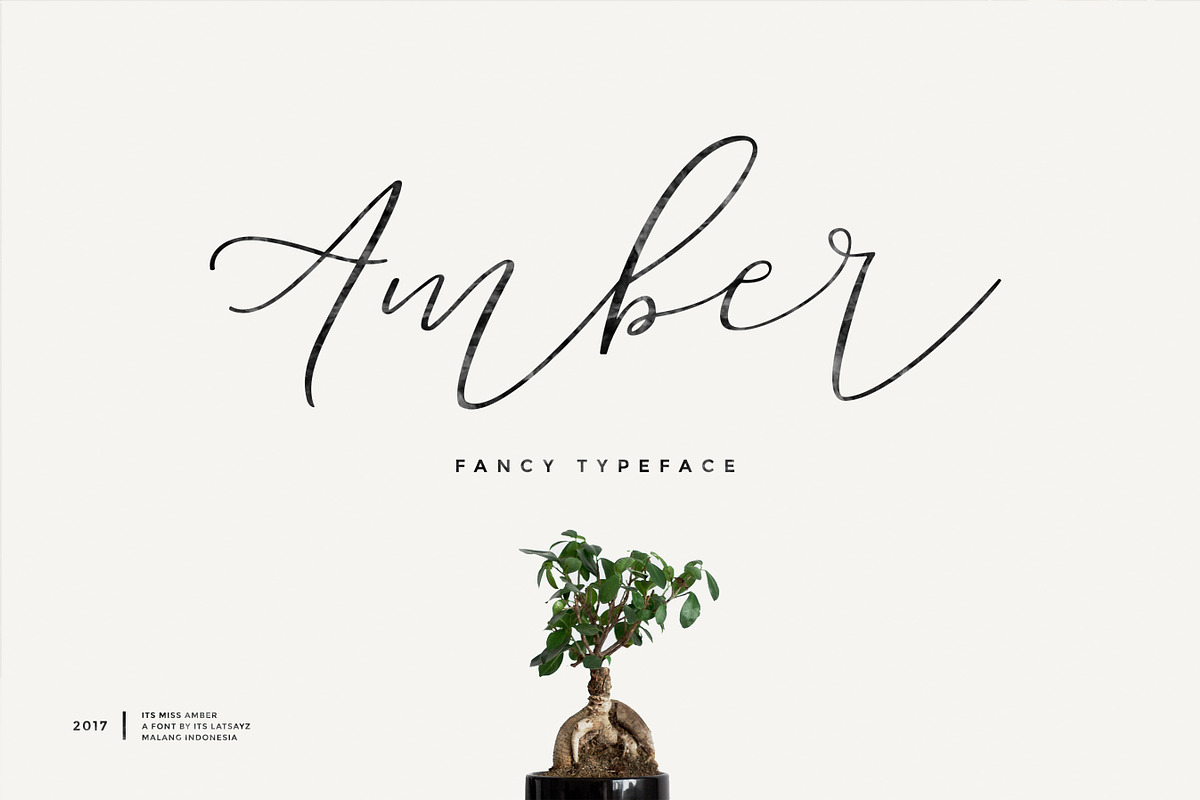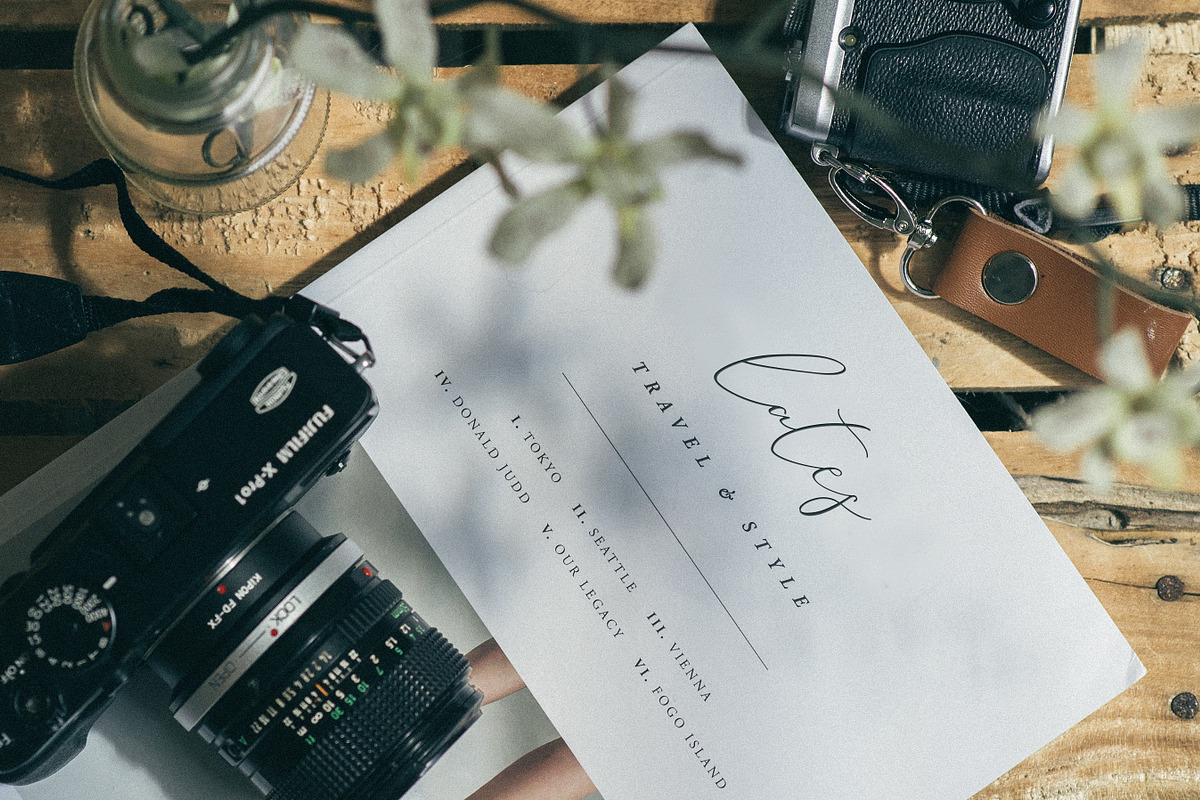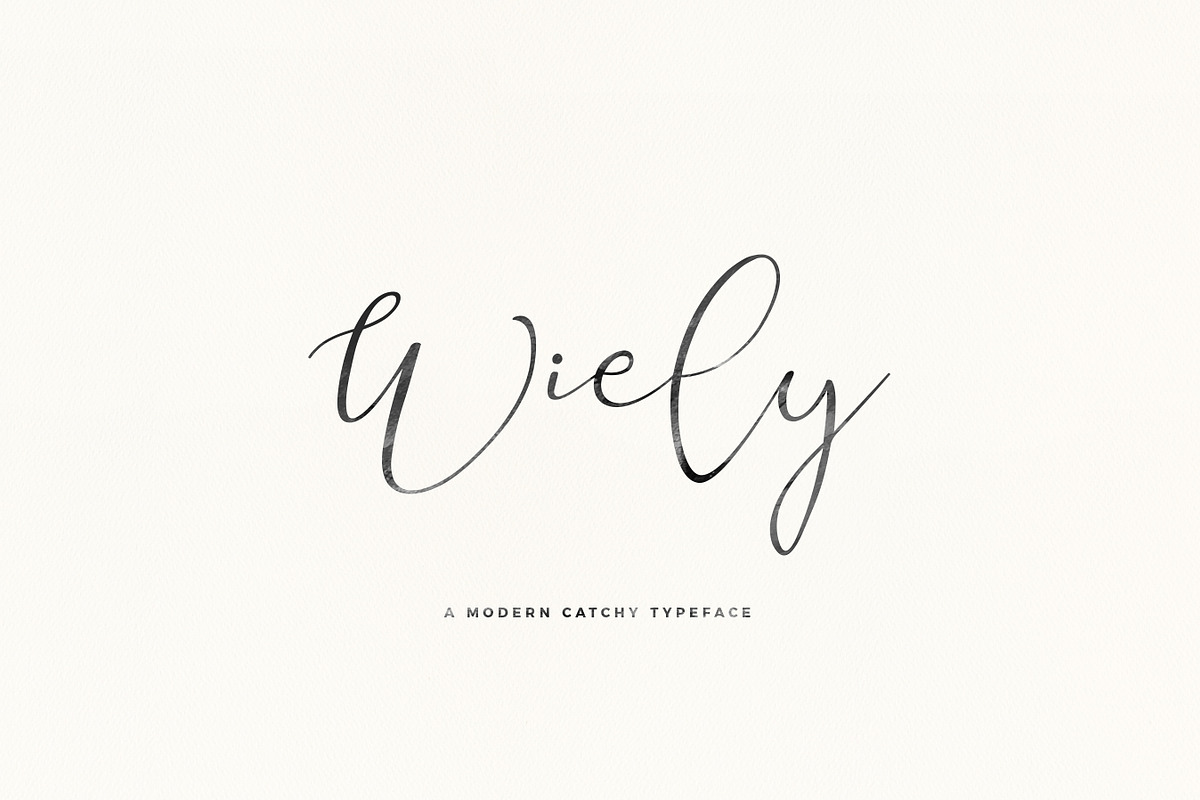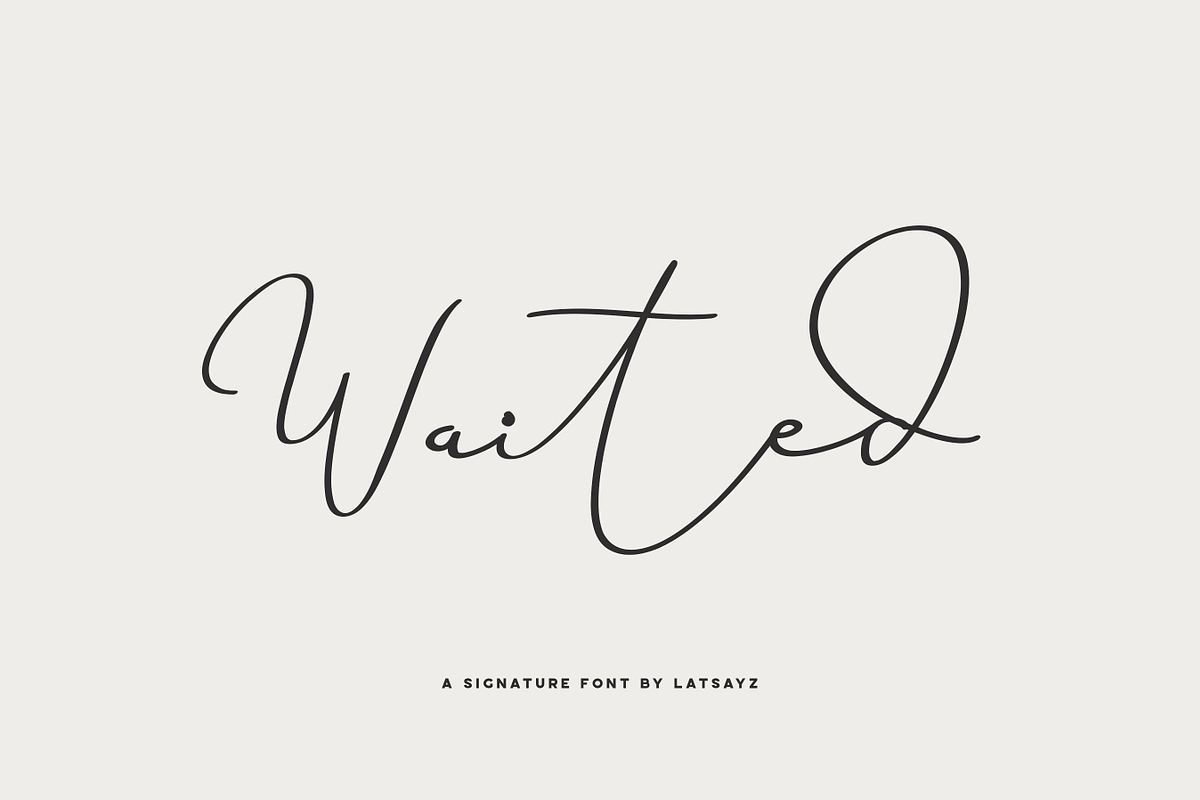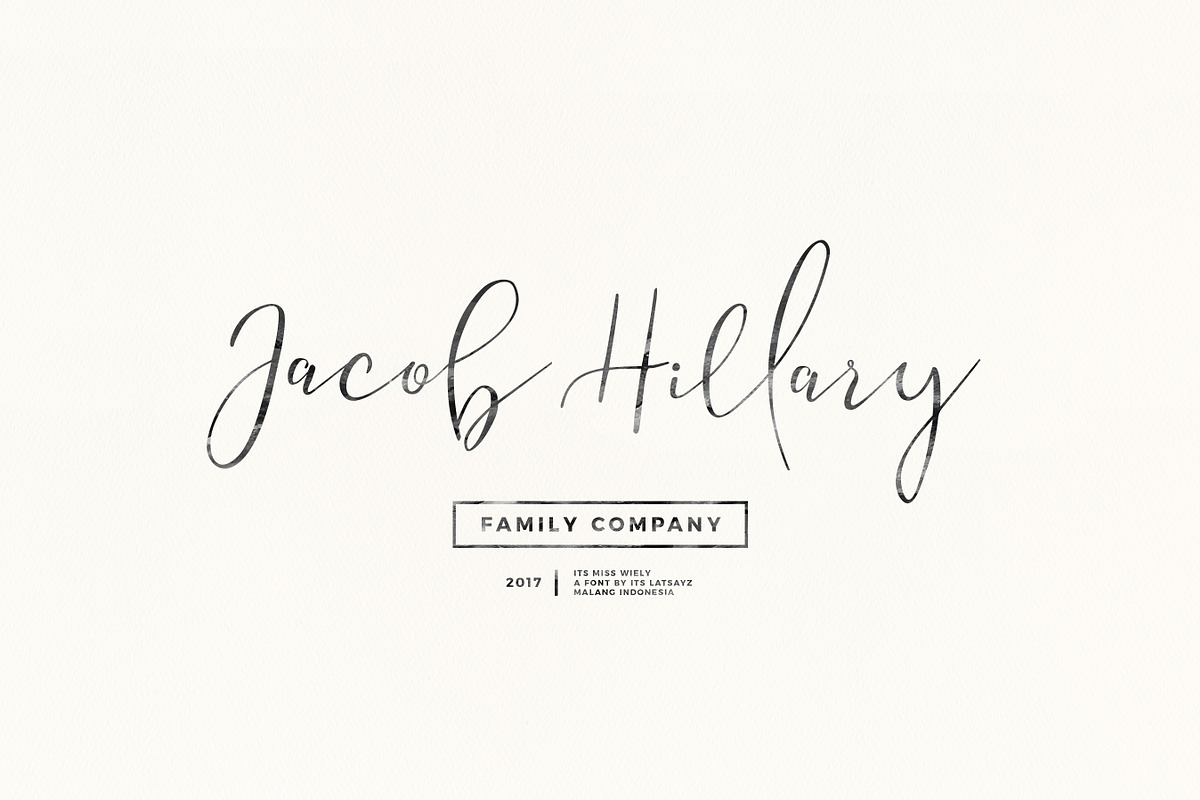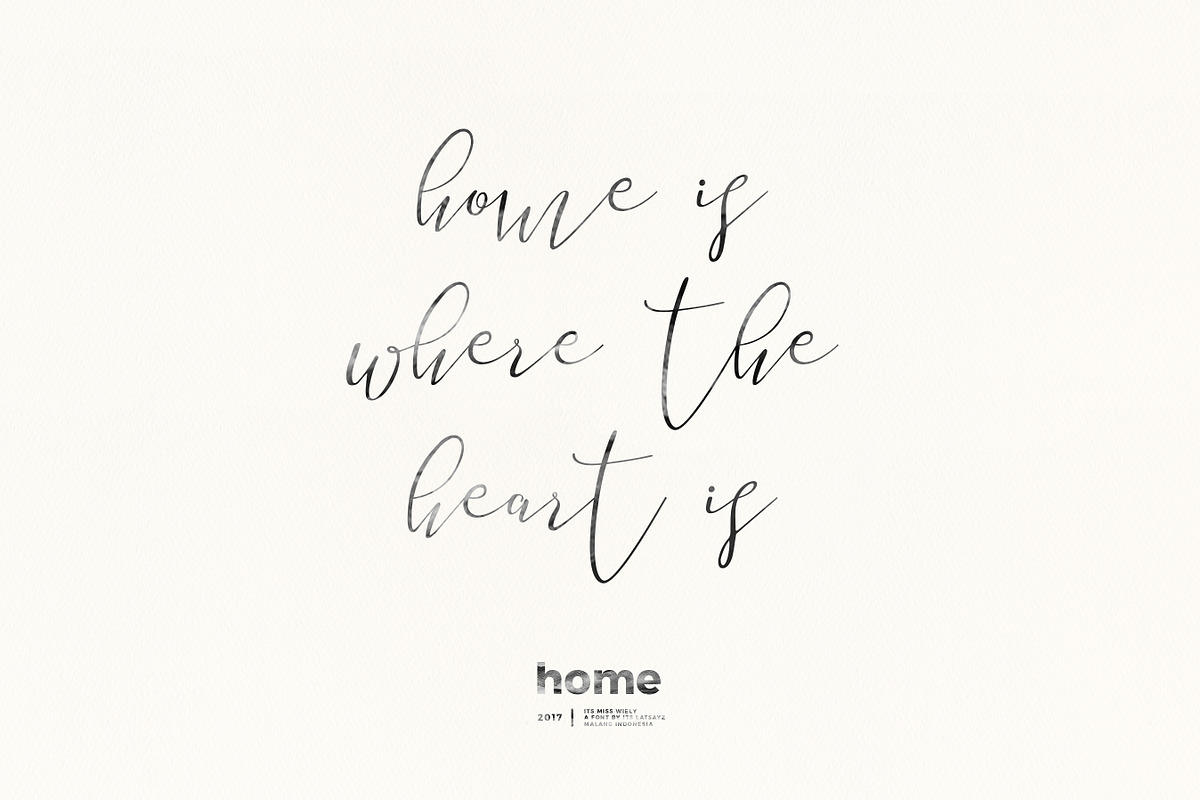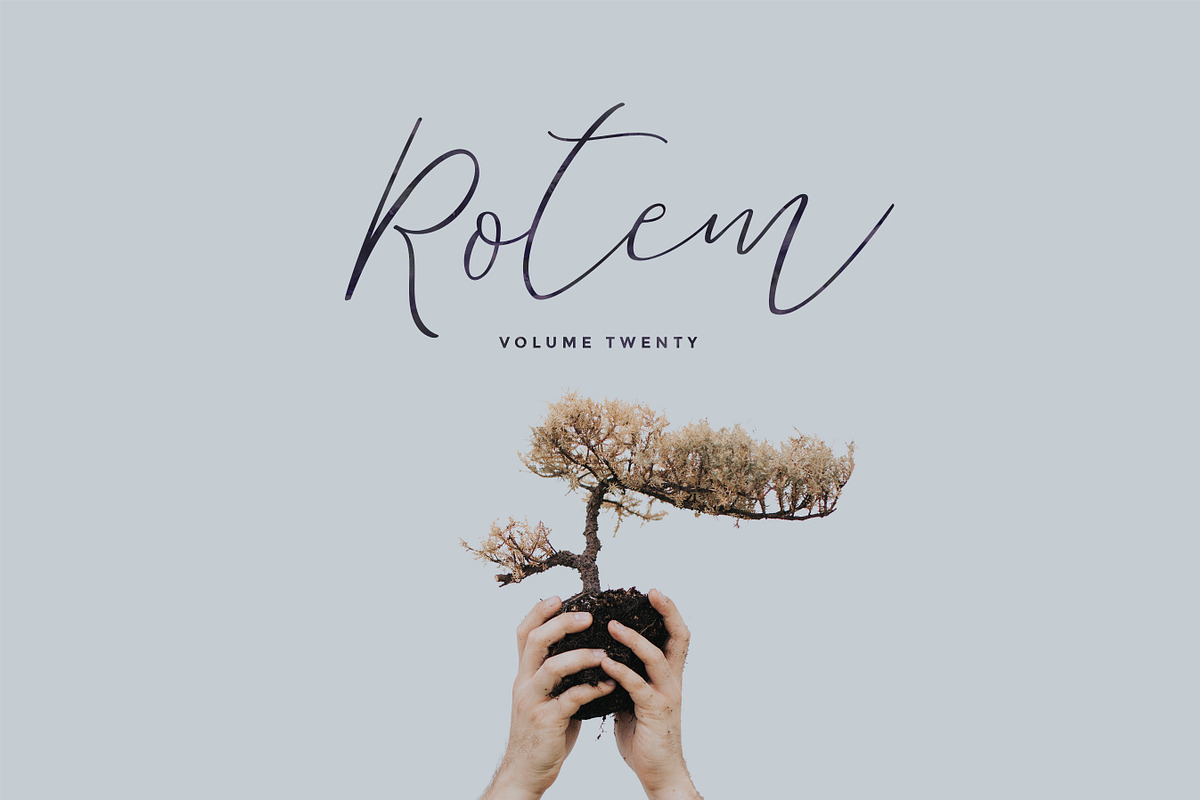
Handlettered Font Bundle
Handlettered Font Bundle - by Its Latsayz
Tasty Missmallove and Bonus :
Miss Balley and Bonus :
This Bundle is great for wedding, event, invitation, escort card, table number, header menus, display, logos, slider blog, custom address, stamps, packaging, greeting card, etc
- Buenos Script Regular
- Hola Roster Regular
- Mallove Regular
- Missmallove Regular
- Its Marison Brieny Regular
- Miss Amber Regular
- Miss Balley Regular
- Miss Quakers Regular
- Miss Summer Sans
- Miss Summer Script
Why Handlettered Font Bundle is worth a look
Handlettered Font Bundle by It's Latsayz fits naturally into Branding, posters, packaging, typography.